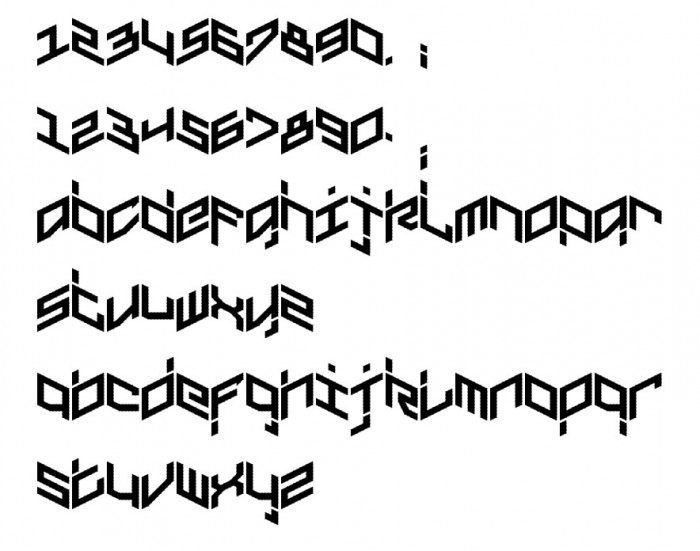
very stylish... and yeah, vague does mean wave in french. looks like for the first time google translate got something right, haha...
the only critics i have is that it would have been more convenient to make all the "upwards" characters on the uppercase and all the "downwards" on the lowercase... but then that would have come at the cost of losing the effect in the abc-preview mode, exposing this nice font to the wellknown "i'm gonna give it a 1 if it doesn't impress me on first glance" effect, which would have been sad... so: reasonable choice.;)
@shasta: Good to know GT got vague right. As per your suggestion, the sorted version of this fontstruction is now live. Could GT be right twice in a row? ;)
the only critics i have is that it would have been more convenient to make all the "upwards" characters on the uppercase and all the "downwards" on the lowercase... but then that would have come at the cost of losing the effect in the abc-preview mode, exposing this nice font to the wellknown "i'm gonna give it a 1 if it doesn't impress me on first glance" effect, which would have been sad... so: reasonable choice.;)
@shasta: Good to know GT got vague right. As per your suggestion, the sorted version of this fontstruction is now live. Could GT be right twice in a row? ;)
reminds me of the calligraphr logo